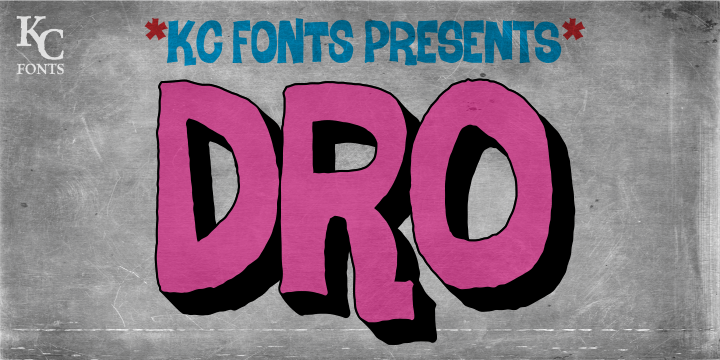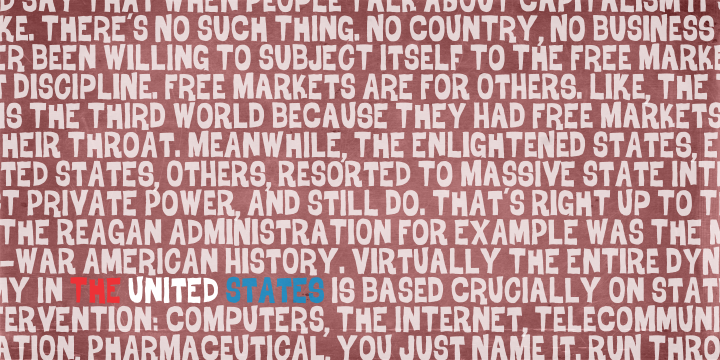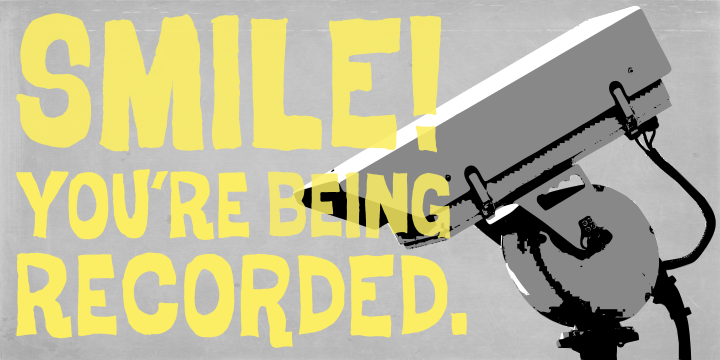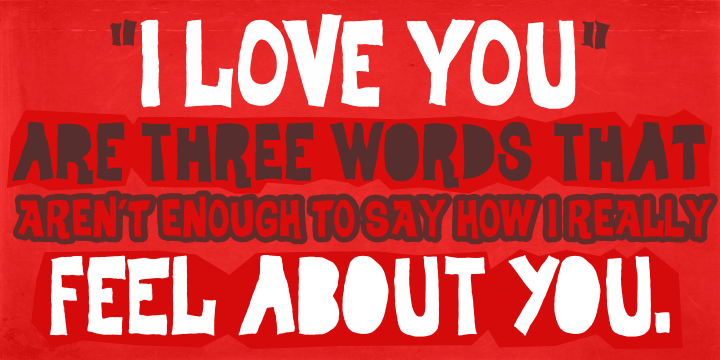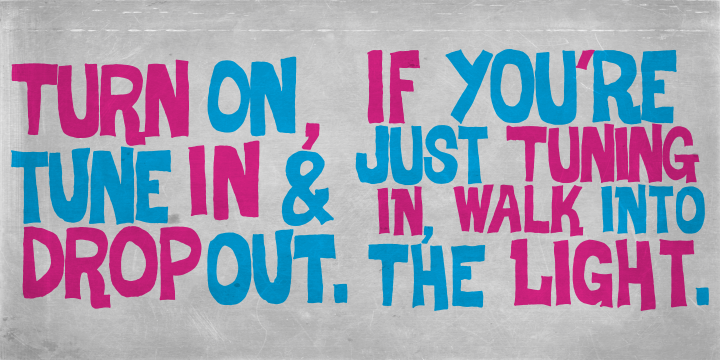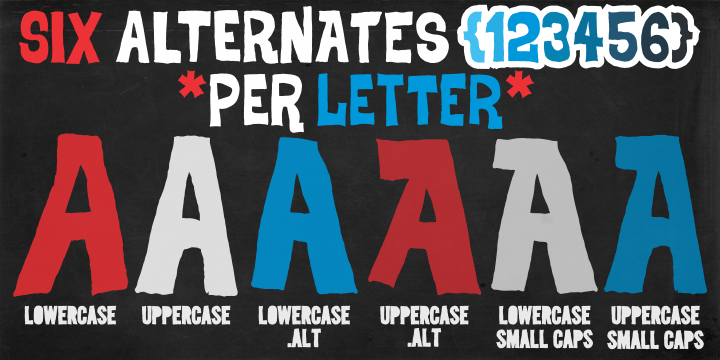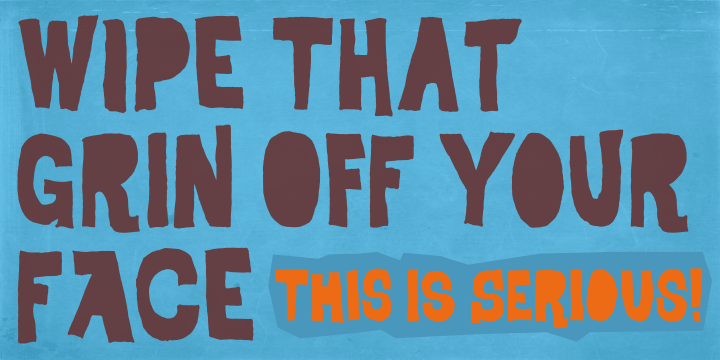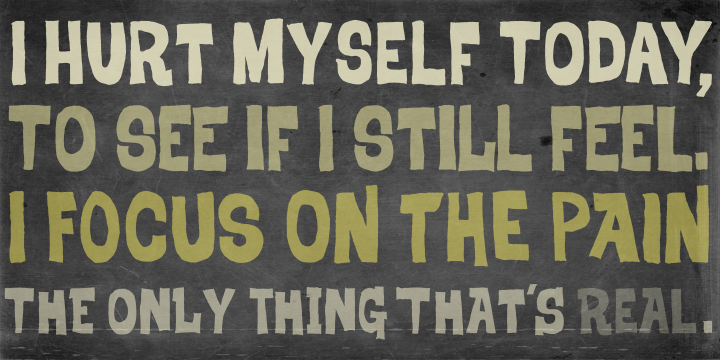
Dro is a kids font family. This typeface has two styles and was published by KC Fonts.
The Dro family is an all uppercase handmade font that resembles cut-out construction paper; Both fonts have 6 glyphs for each letter & 2 per number which are accessed by uppercase, lowercase, small caps & Contextual Alternates. Each font has 550+ glyphs total.
When using Opentype applications Dro and Dro Fill take the handmade look further by cycling through Contextual Alternates, Small Caps & Double Letter Ligatures for a unique and authentic look to your creative. When not using the Contextual Alternates feature, you can still alternate between uppercase and lowercase letters and using Stylistic Sets to switch up the flow. The Dro family has an extended character set for multilingual support.